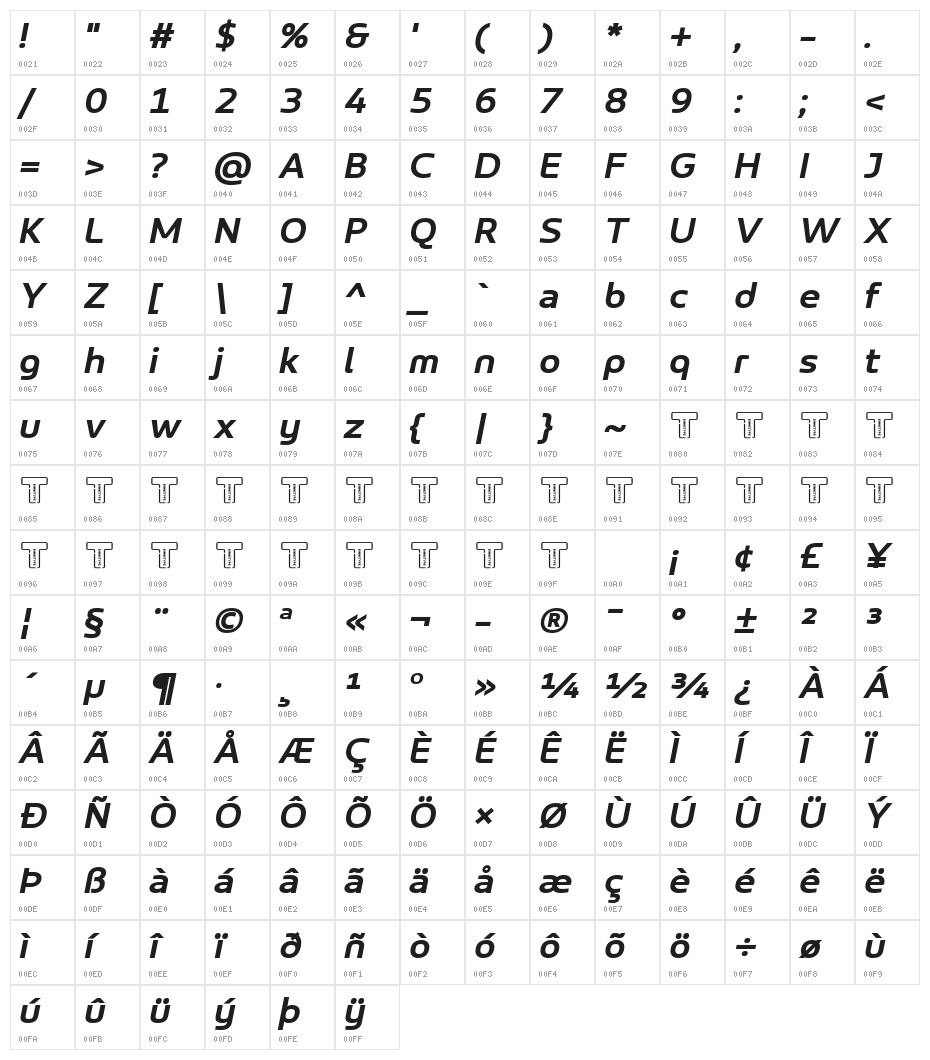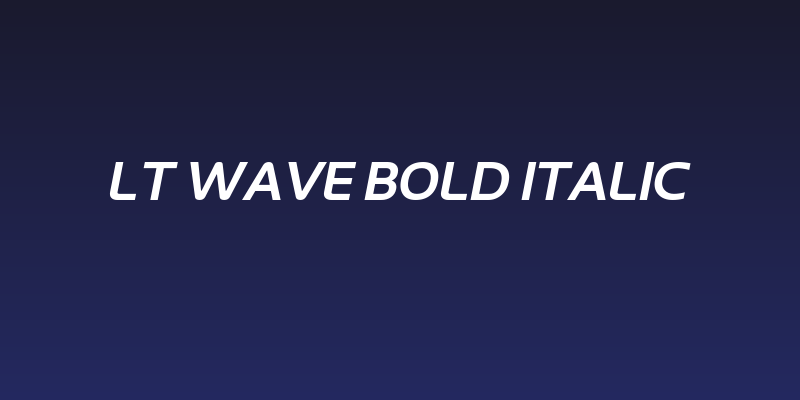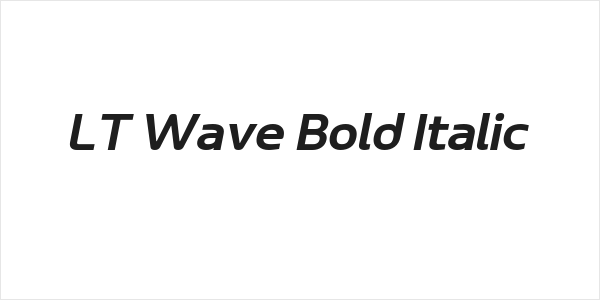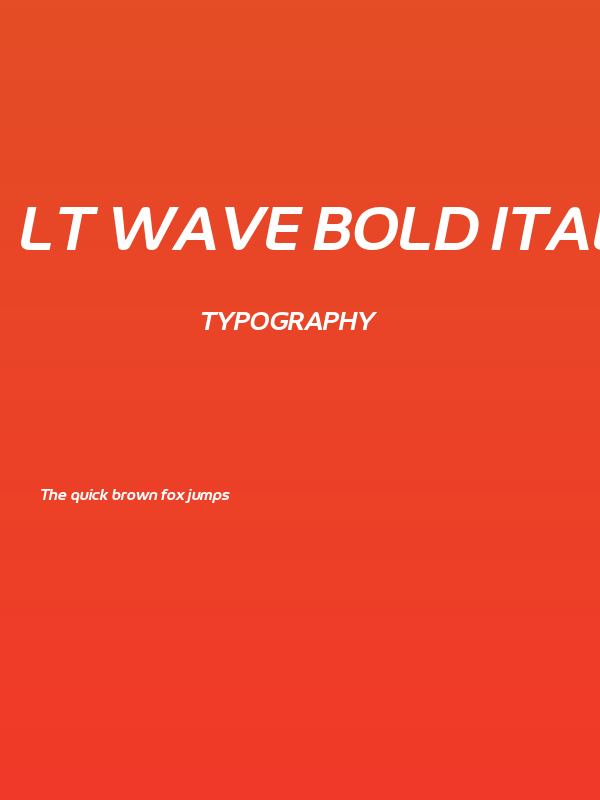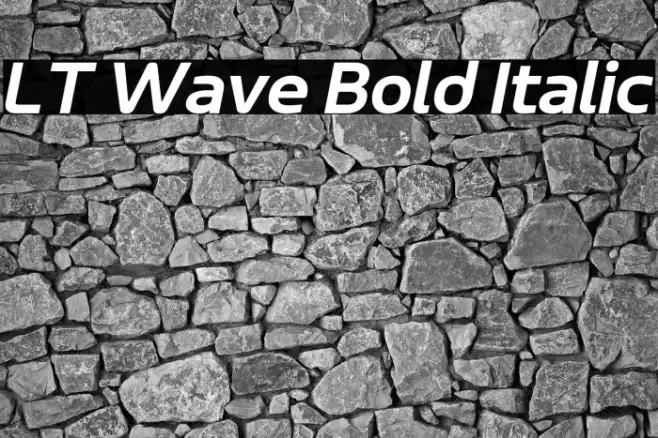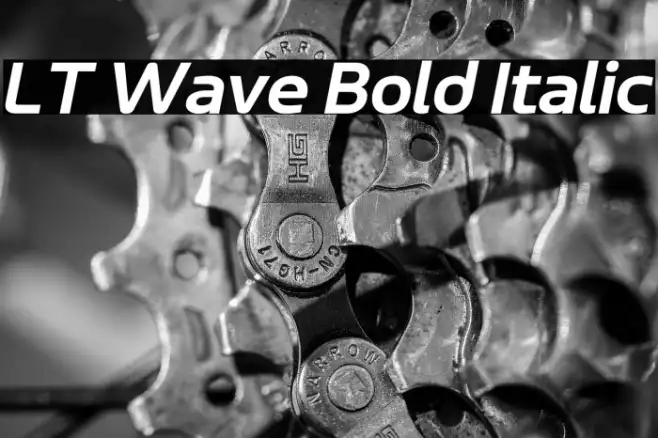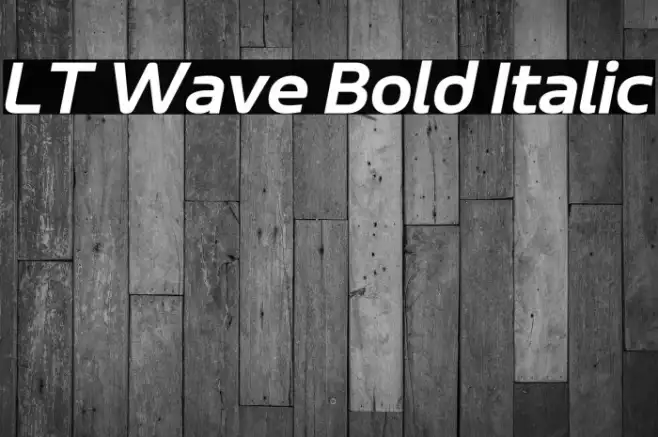
LT Wave Bold Italic Font
LT Wave Bold Italic Description
This font features a bold and italic style, characterized by its dynamic and modern appearance. The letters are slightly slanted, adding a sense of movement and energy. The strokes are thick and consistent, providing a strong visual impact. The overall design is sleek and contemporary, making it suitable for a variety of creative applications. The characters are well-spaced, ensuring readability while maintaining a compact form. The numerals and special characters are designed to match the boldness and style of the alphabet, offering a cohesive look across all elements.
| Use Case | Headlines, Logos, Advertising |
| Proposed Projects | Ideal for branding, advertising, headlines, and modern design projects. |